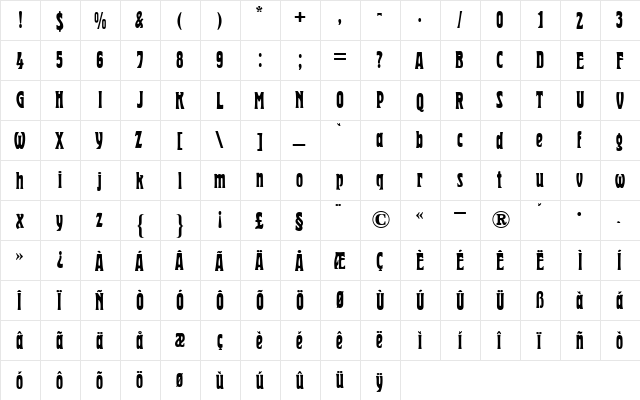
Herold Reklameschrift Regular
Design Context for Herold Reklameschrift Typeface
Herold Reklameschrift offers clean, dependable letterforms without strong stylistic allegiance, making it a practical choice for designers who need flexibility.